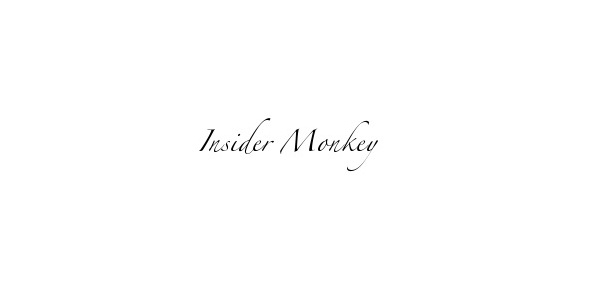
7 Worst Fonts to Avoid on Your Resume
5. Zapfino (and all similar)
There’s nothing wrong with Zapfino if you’re planning to use it for the banner for your blog, or for printing out a party invitation, but this connected script isn’t the best choice for a resume.
That’s mainly because it can be difficult to read, especially since time is of the essence and human resources specialists don’t like wasting time trying to figure out if that’s an “e” or an “o” in there. Either way, connected scripts, no matter how pretty they look (and they’re really so cute) just aren’t right for a professional occasion such as a resume.